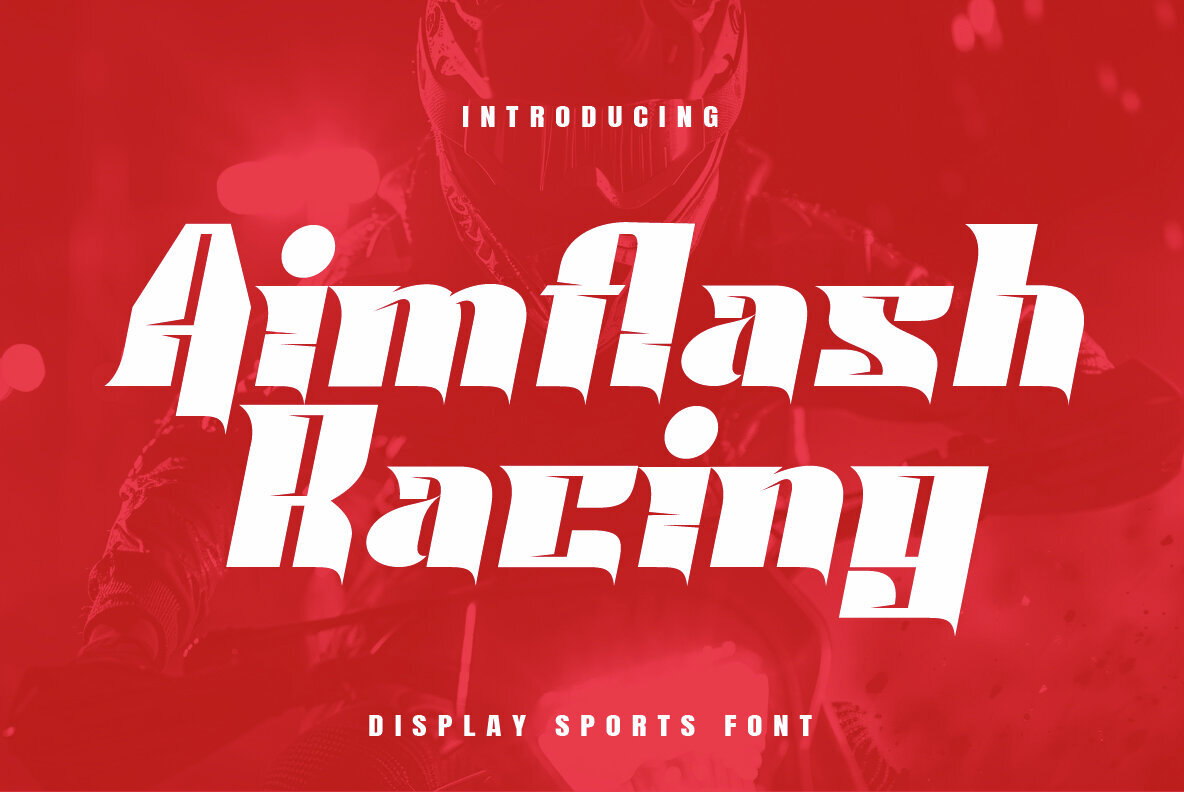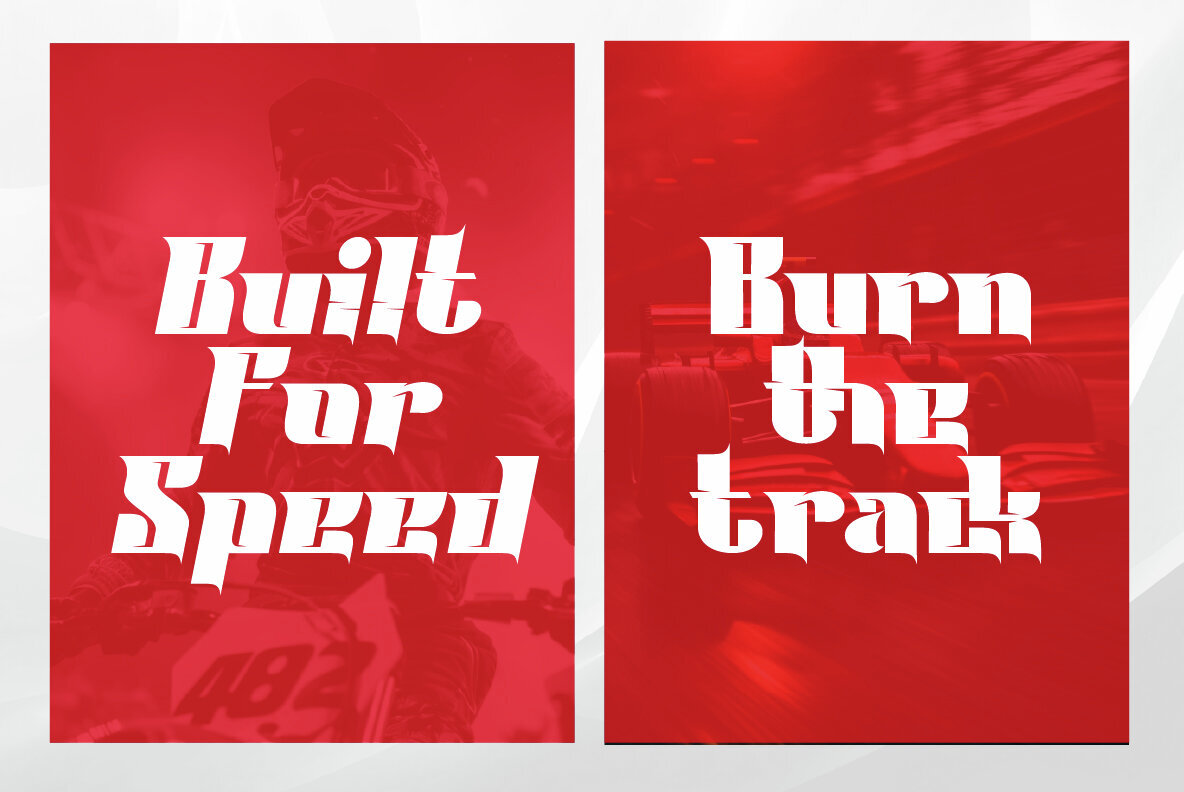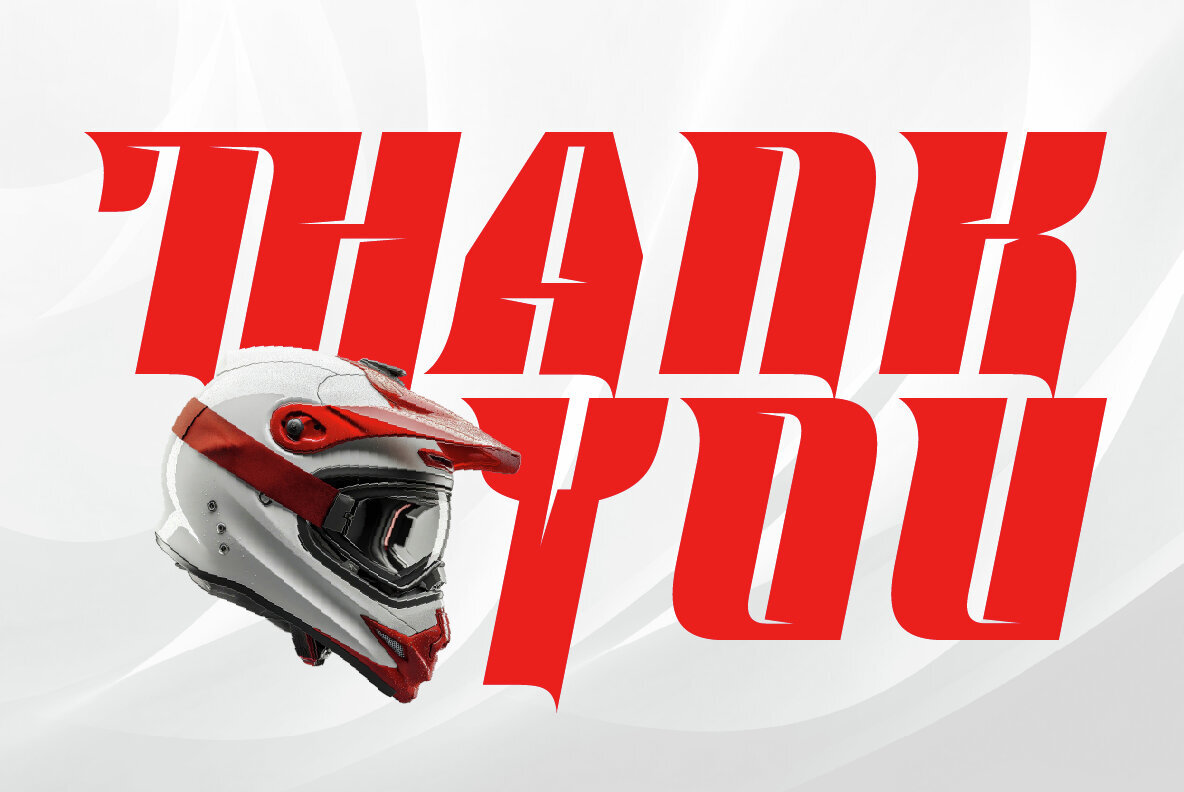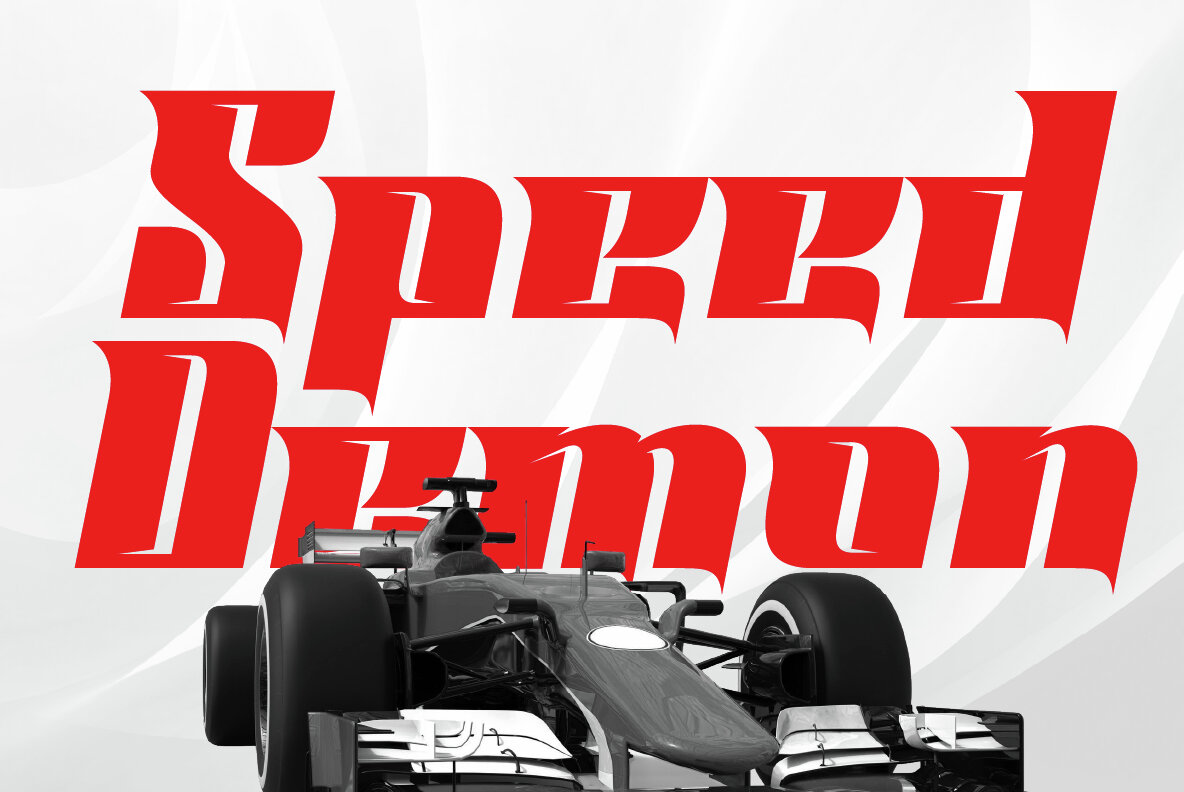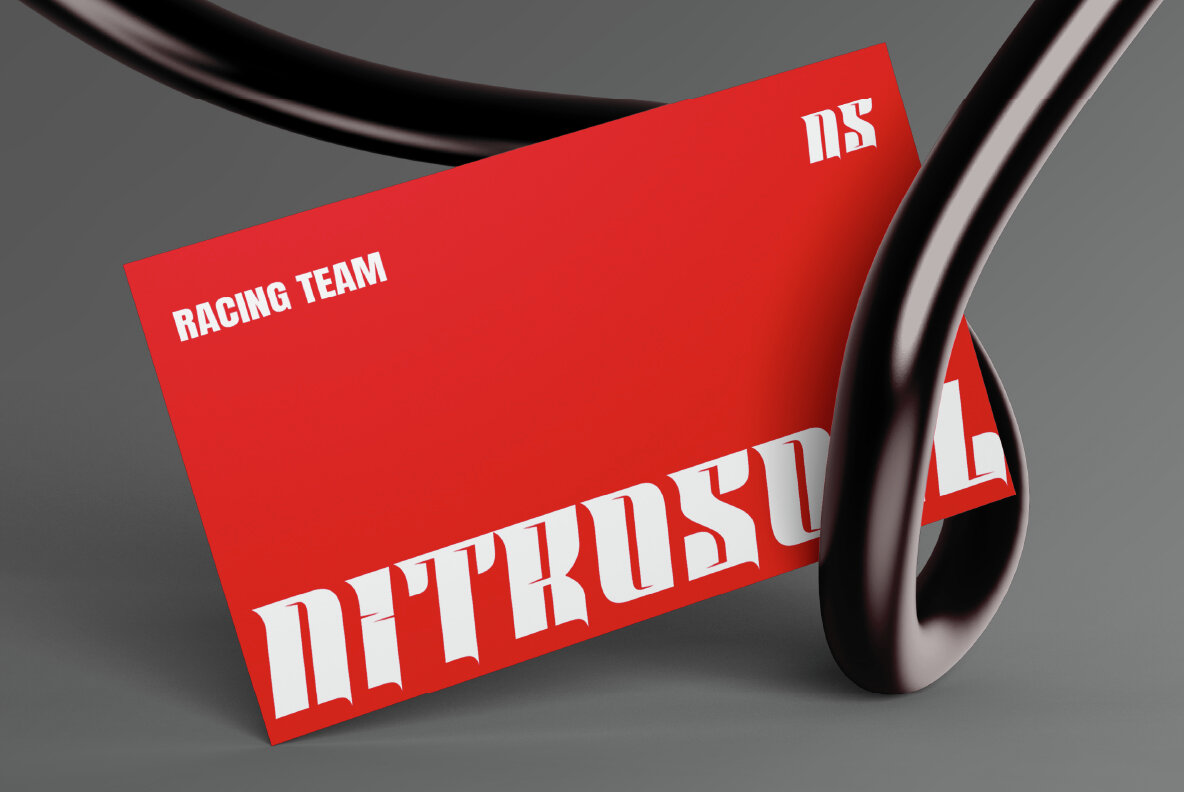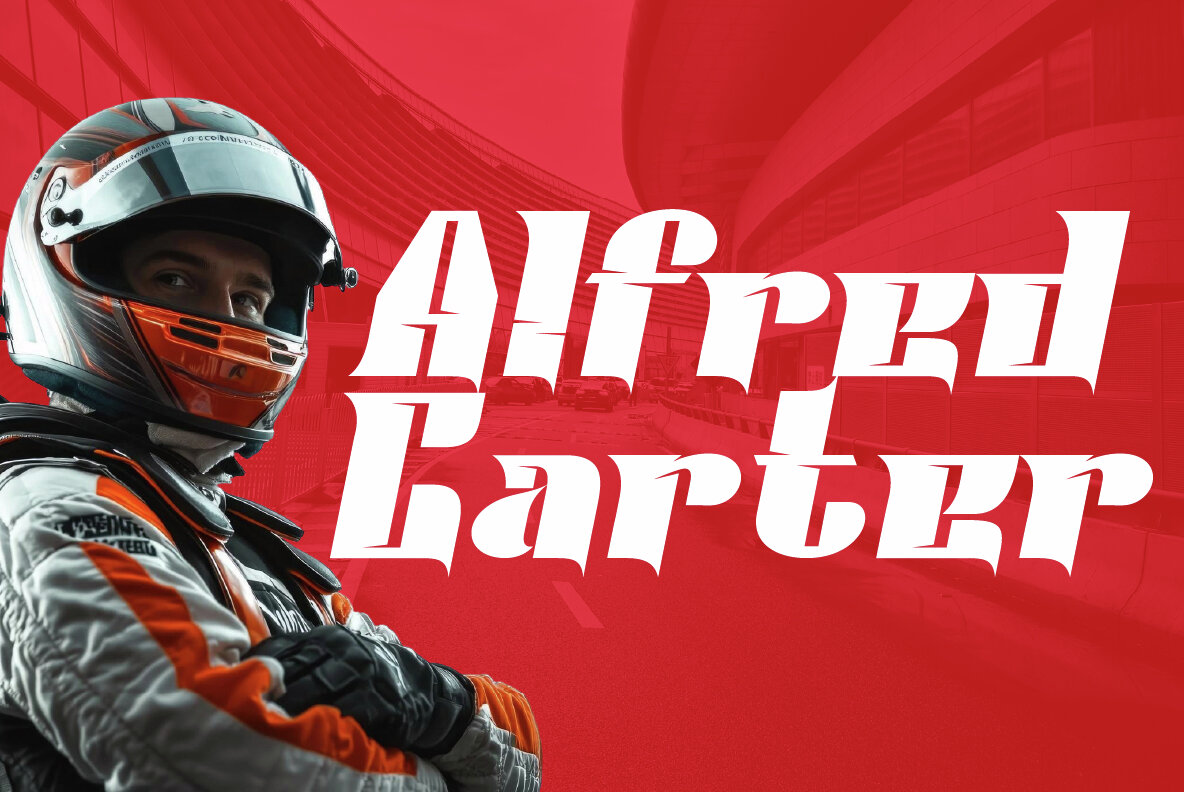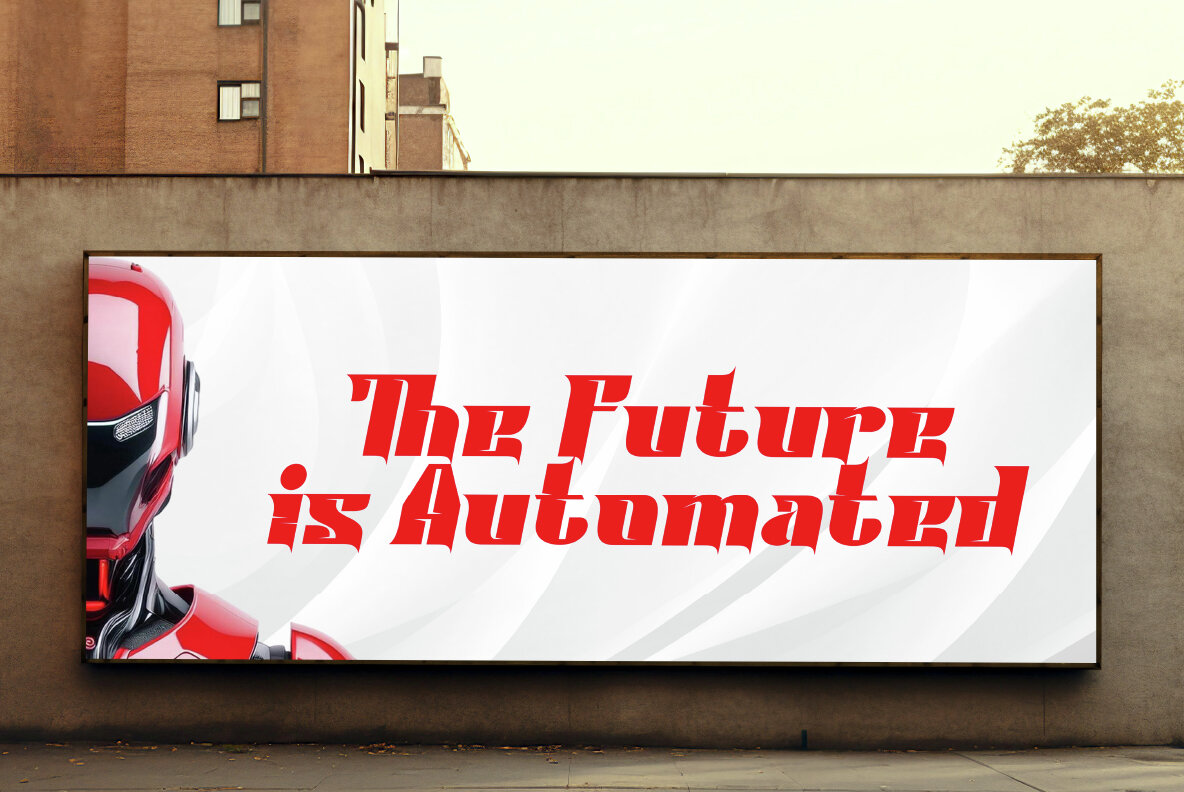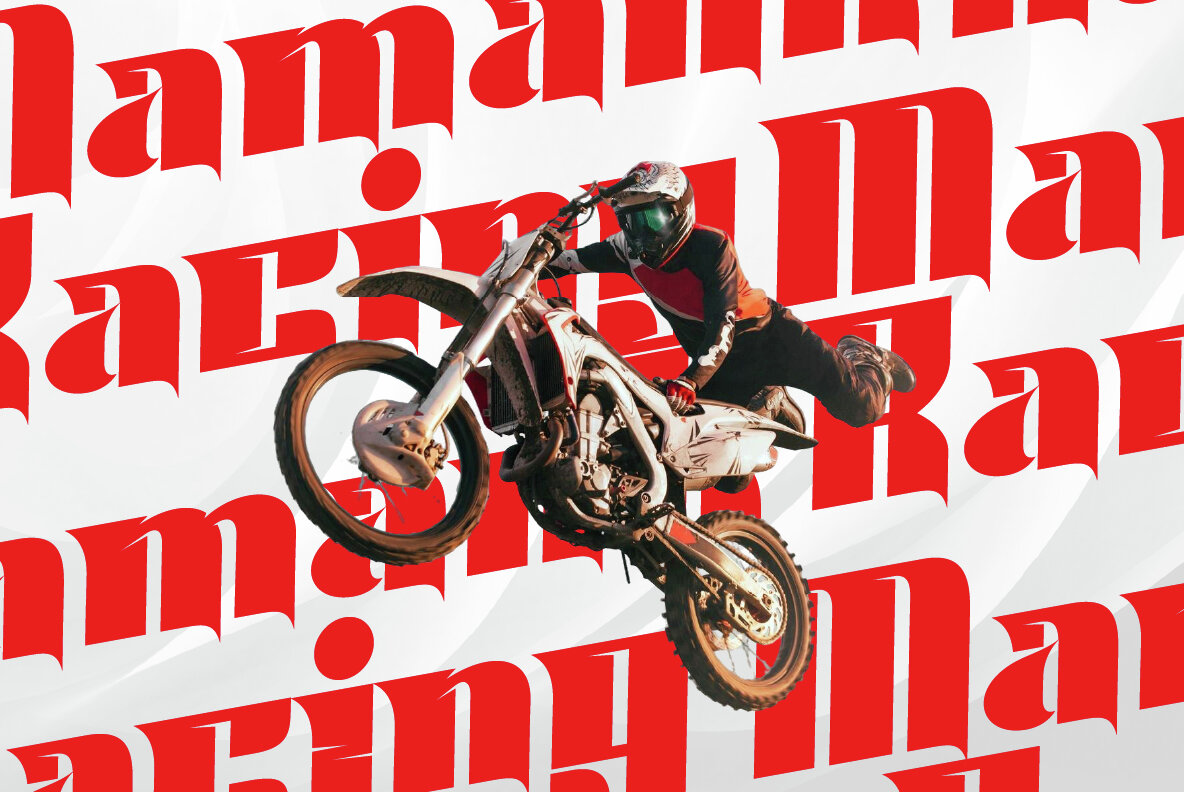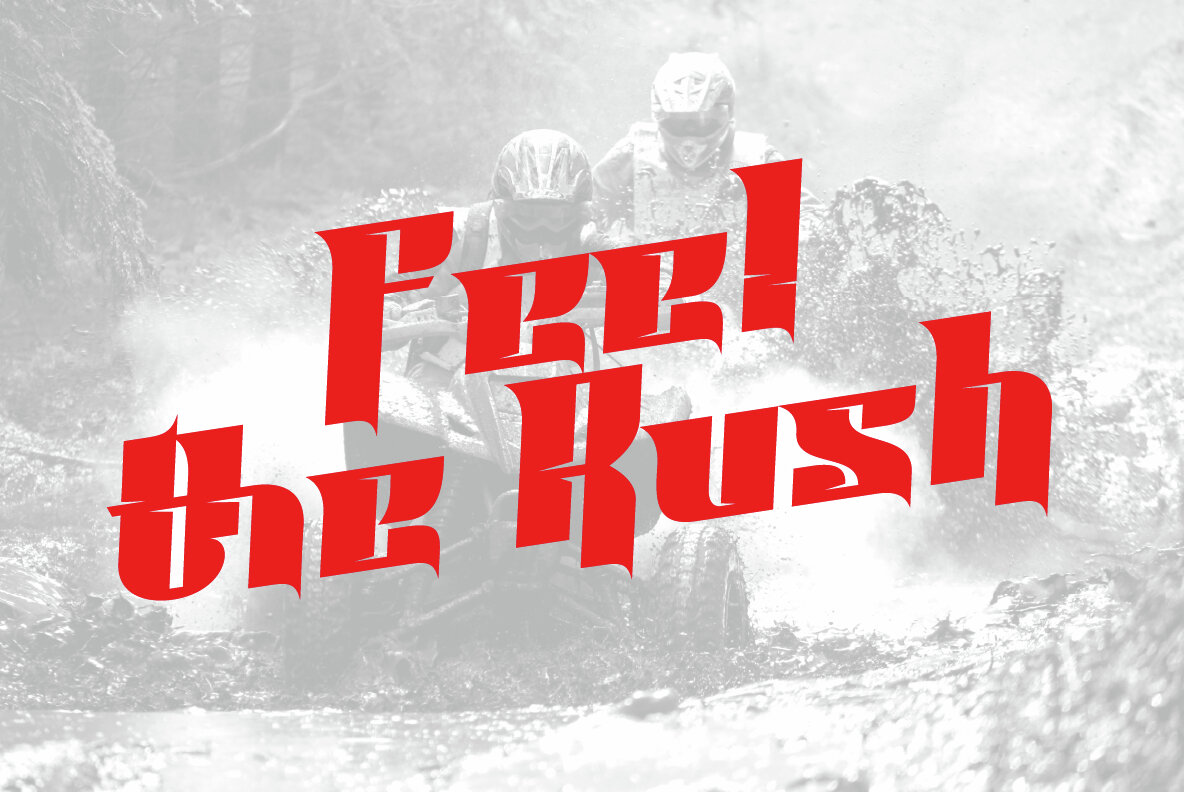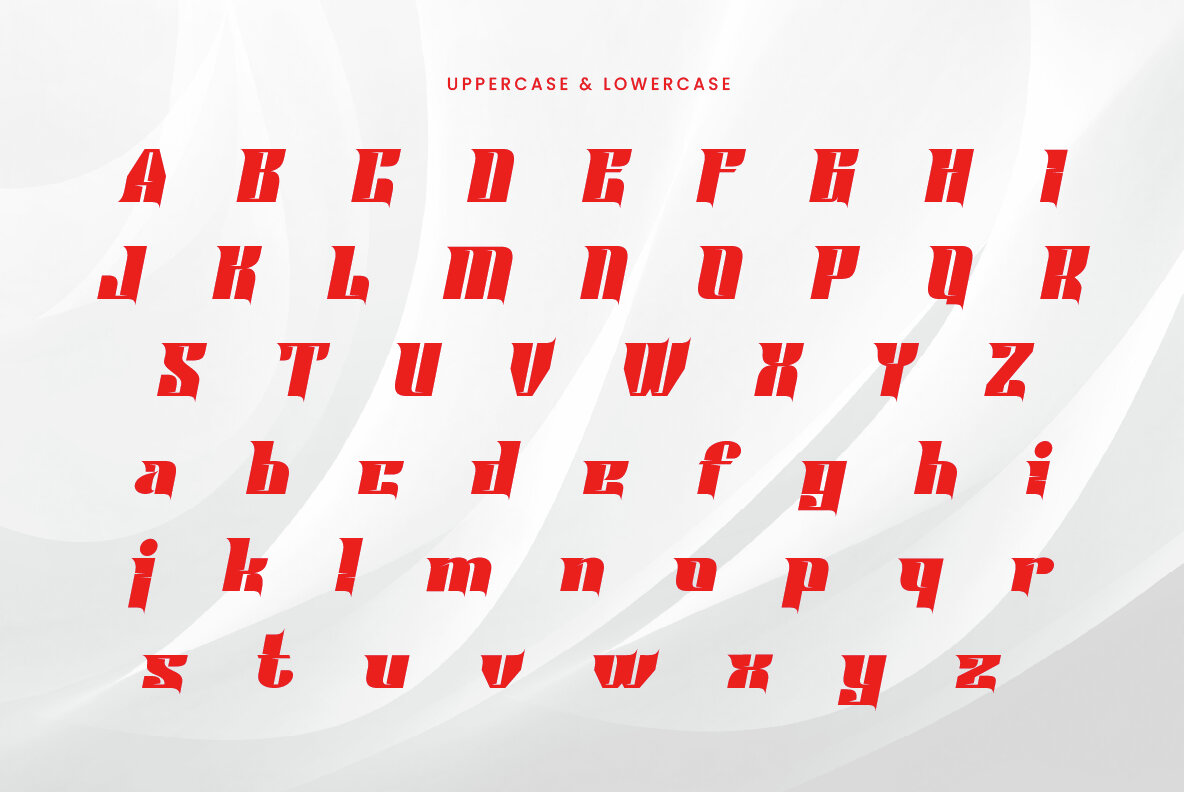
Aimflash Font
Aimflash is a bold and energetic display font that captures the essence of speed and power in your design projects. Inspired by the world of motorsports, it features sharp angles and fast lines, creating an aggressive stance ideal for racing posters, automotive branding, esports logos, and adrenaline-driven headlines. Its sporty aesthetic and impactful presence infuse a sense of motion and intensity into every application. Elevate your designs with Aimflash, a font where every letter races to the finish line.Aimflash: A Dynamic Display Font